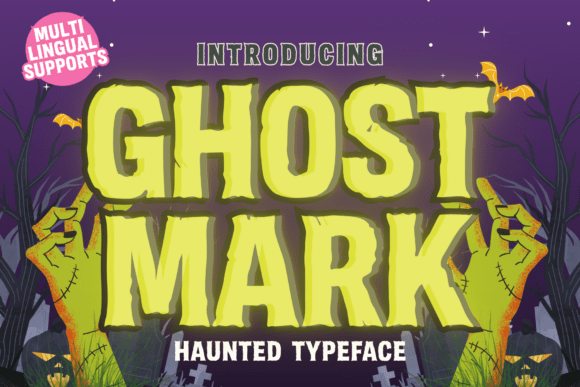
Introducing Ghostmark Font: The Ultimate Typeface for Horror and Eerie Titles
In the world of typography, fonts play a crucial role in conveying the tone and atmosphere of a design. For horror movie posters, eerie titles, and other spooky projects, a font that exudes a chilling edge is essential. This is where Ghostmark Font comes in – a bold, haunted typeface designed to add a supernatural intensity to your words.
What is Ghostmark Font?
Ghostmark is a bold, haunted typeface crafted for horror movie posters, eerie titles, and anything that needs a chilling edge. Its jagged outlines and distressed texture evoke the feeling of something left behind — a mark from the other side. With its gritty details and shadowy presence, GHOSTMARK makes every word scream with supernatural intensity.
Key Design Features of Ghostmark Font
Ghostmark Font boasts several design features that make it perfect for horror and eerie designs:
- Jagged Outlines: The font’s jagged outlines give it a rough, distressed look that’s perfect for creating a sense of unease and tension.
- Distressed Texture: The font’s texture is designed to resemble something that’s been left behind, adding to the overall eerie feel.
- Gritty Details: The font’s gritty details add a level of depth and complexity, making it perfect for creating a sense of supernatural intensity.
- Shadowy Presence: The font’s shadowy presence adds to its overall haunted feel, making it perfect for creating eerie titles and horror movie posters.
Uses of Ghostmark Font
Ghostmark Font is perfect for a variety of design projects, including:
- Horror Movie Posters: The font’s bold, haunted design makes it perfect for creating eye-catching horror movie posters.
- Eerie Titles: The font’s eerie feel makes it perfect for creating titles for horror movies, TV shows, and other spooky projects.
- Halloween-themed Designs: The font’s spooky design makes it perfect for creating Halloween-themed designs, such as invitations, flyers, and posters.
- Supernatural-themed Designs: The font’s supernatural feel makes it perfect for creating designs for supernatural-themed projects, such as ghost hunting websites, paranormal investigation services, and more.
Typography Tips for Using Ghostmark Font
To get the most out of Ghostmark Font, here are some typography tips to keep in mind:
- Use it sparingly: Due to its bold, haunted design, Ghostmark Font is best used sparingly. Use it for headings or titles, and pair it with a simpler font for body text.
- Experiment with colors: The font’s distressed texture and shadowy presence make it perfect for experimenting with different colors. Try using it with bold, bright colors to create a striking contrast.
- Pay attention to spacing: The font’s jagged outlines and distressed texture can make it difficult to read if the spacing is too tight. Make sure to leave enough space between letters and words to ensure readability.
Ghostmark Font vs. Other Horror Fonts
While there are many horror fonts available, Ghostmark Font stands out from the crowd due to its unique design features. Here’s a comparison with other popular horror fonts:
- Creepster Font: While Creepster Font is also a horror font, it has a more playful, cartoonish feel. Ghostmark Font, on the other hand, has a more serious, supernatural feel.
- Halloween Font: Halloween Font is a bold, sans-serif font that’s perfect for creating Halloween-themed designs. However, it lacks the distressed texture and shadowy presence of Ghostmark Font.
- Bebas Neue Font: Bebas Neue Font is a bold, modern font that’s perfect for creating striking headlines. However, it lacks the haunted feel and supernatural intensity of Ghostmark Font.
In conclusion, Ghostmark Font is a bold, haunted typeface that’s perfect for horror movie posters, eerie titles, and other spooky projects. Its jagged outlines, distressed texture, and shadowy presence make it a standout font that’s sure to add a supernatural intensity to your designs. With its versatility and unique design features, Ghostmark Font is a must-have for any designer looking to create eerie, supernatural designs.